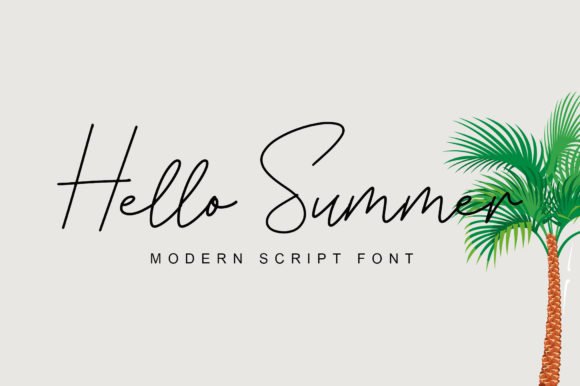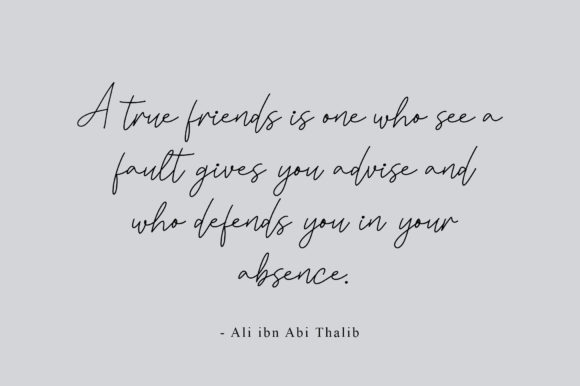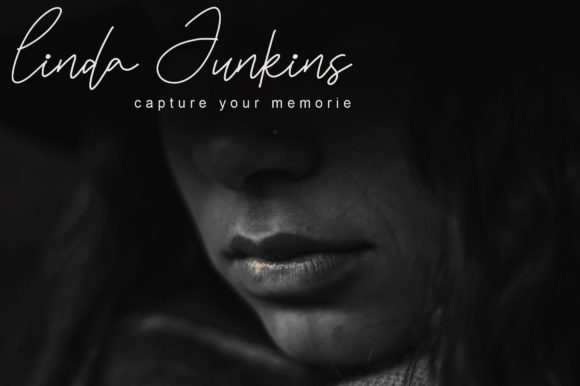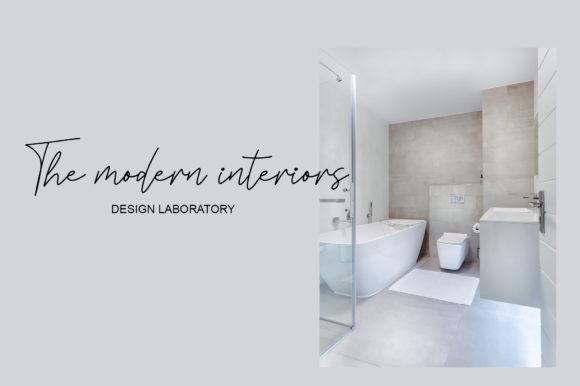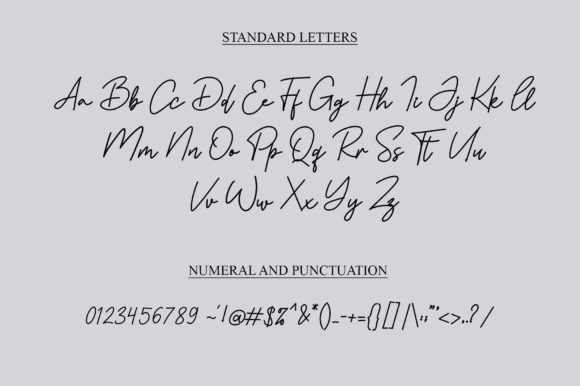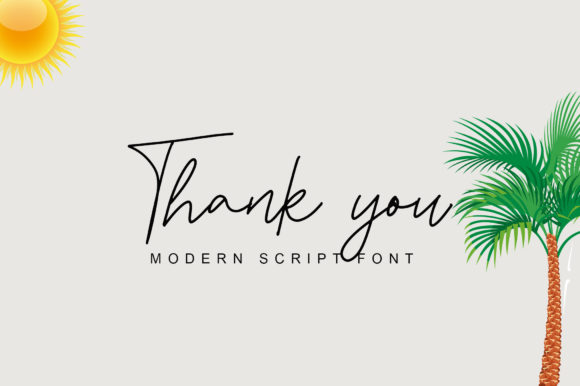
Welcome to the Magic of Hello Summer Font
As the warm sun shines bright and the air fills with the sweet scent of blooming flowers, we know it’s officially time to say hello to summer. For creatives, this season is all about embracing the carefree spirit and letting our imagination run wild. Whether you’re planning a summer wedding, designing a new brand identity, or simply looking for the perfect font to caption your Instagram posts, the right typography can make all the difference.
Enter Hello Summer Font, a beautifully crafted script font that’s sure to transport you to a world of elegance and whimsy. With its delicate strokes and soft curves, this font is perfect for adding a touch of sophistication to any design project. Whether you’re a seasoned designer or a DIY enthusiast, Hello Summer Font is a valuable tool that will help you bring your creative ideas to life.
- Unique Characteristics: The font features a unique blend of modern and vintage elements, with intricate details and ornaments that evoke a sense of summer nostalgia.
Hello Summer Font Review
As a designer, I had the chance to work with the ‘Hello Summer Font’ and here’s my honest take on it. ✨ One thing that really stands out is its unique and playful vibe. The font’s curved lines and rounded edges give it a carefree, summery feel that’s perfect for projects related to the season or anything that needs a lighthearted touch. The font also includes a range of glyphs and symbols, making it a great option for projects that require a lot of character support.
- ✨ The font’s playful and summery vibe is perfect for seasonal projects or anything that needs a lighthearted touch.
- ✨ The inclusion of a range of glyphs and symbols makes it a great option for projects that require a lot of character support.
However, I do have a few ⚠️ limitations to mention. The font’s rounded edges can sometimes make it difficult to read, especially in smaller sizes. Additionally, the font’s overall structure can feel a bit too whimsical for projects that require a more professional or serious tone.
- ⚠️ The font’s rounded edges can make it difficult to read in smaller sizes.
- ⚠️ The font’s overall structure can feel too whimsical for more professional or serious projects.
Overall, I think the ‘Hello Summer Font’ is a great option for projects that require a lighthearted, summery feel. However, it may not be the best choice for projects that require a more serious or professional tone.
Some tips for getting the most out of Hello Summer Font include:
- Using the font in combination with other summer-themed graphics and illustrations.
- Adjusting the font size and color to match your design aesthetic.
- Using the font to create a cohesive and visually appealing design.
Common use cases for Hello Summer Font include: